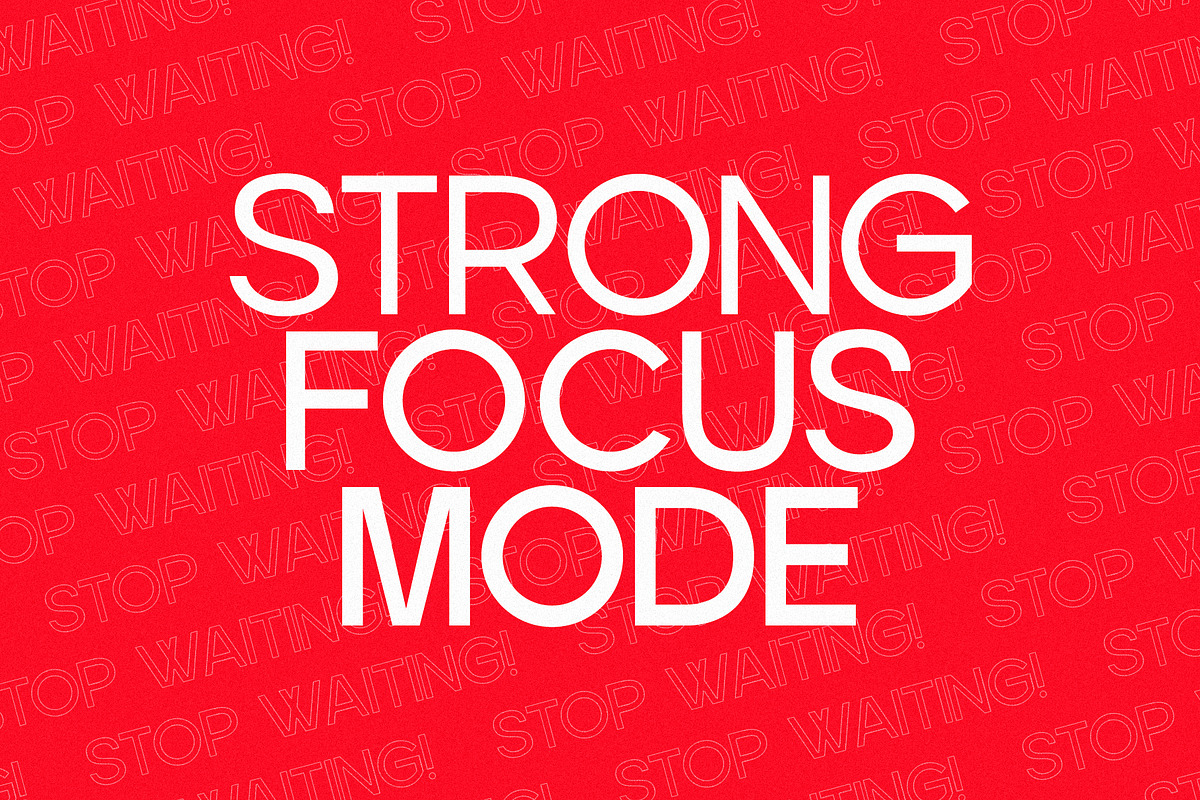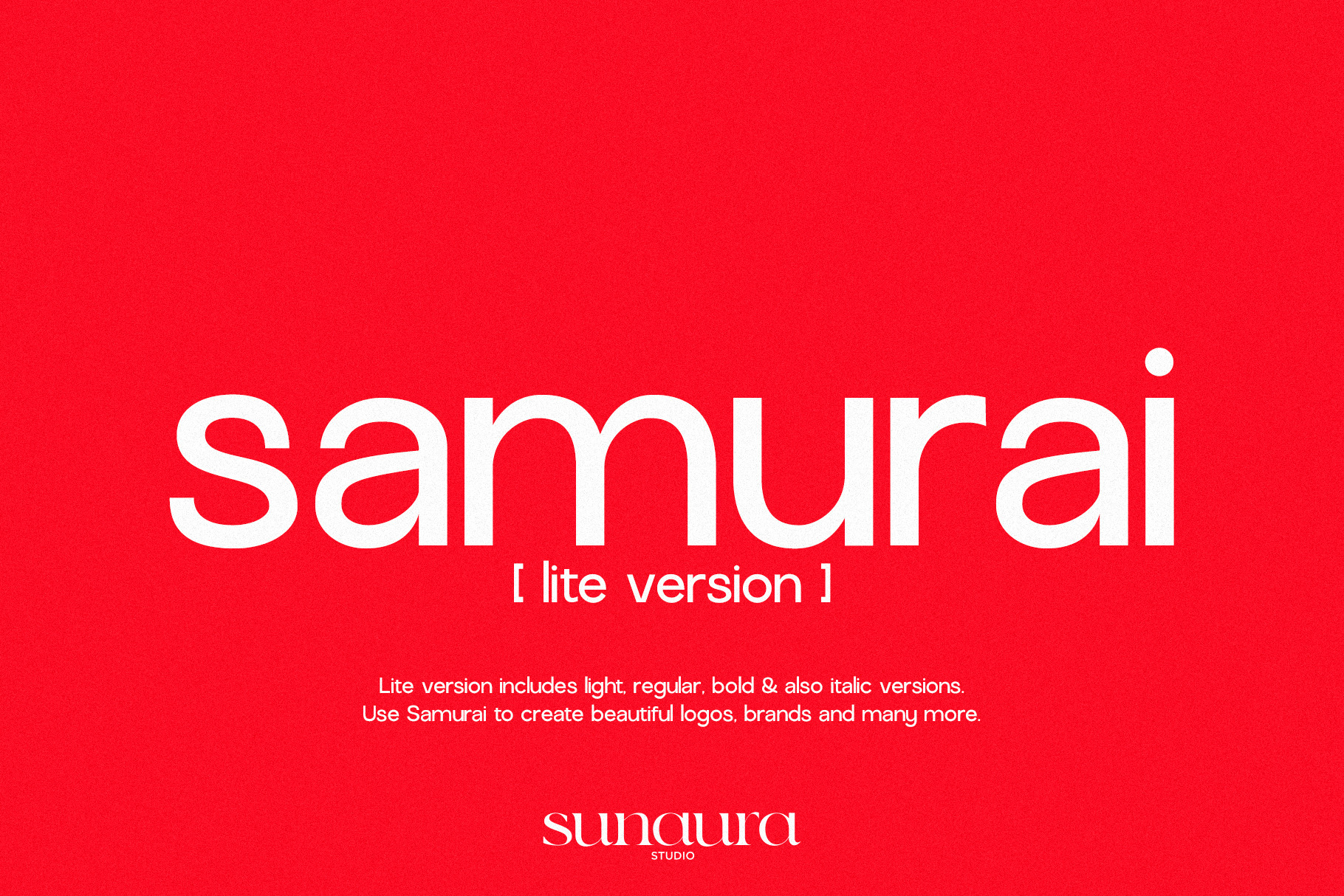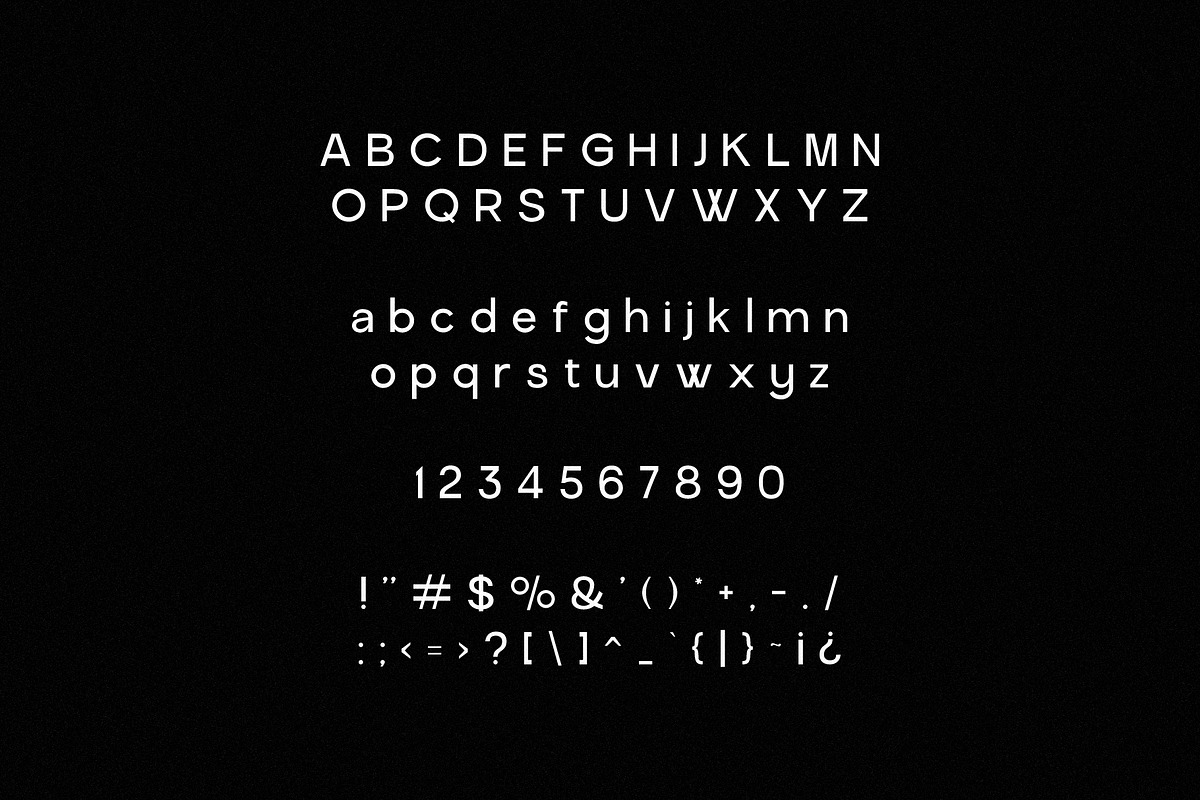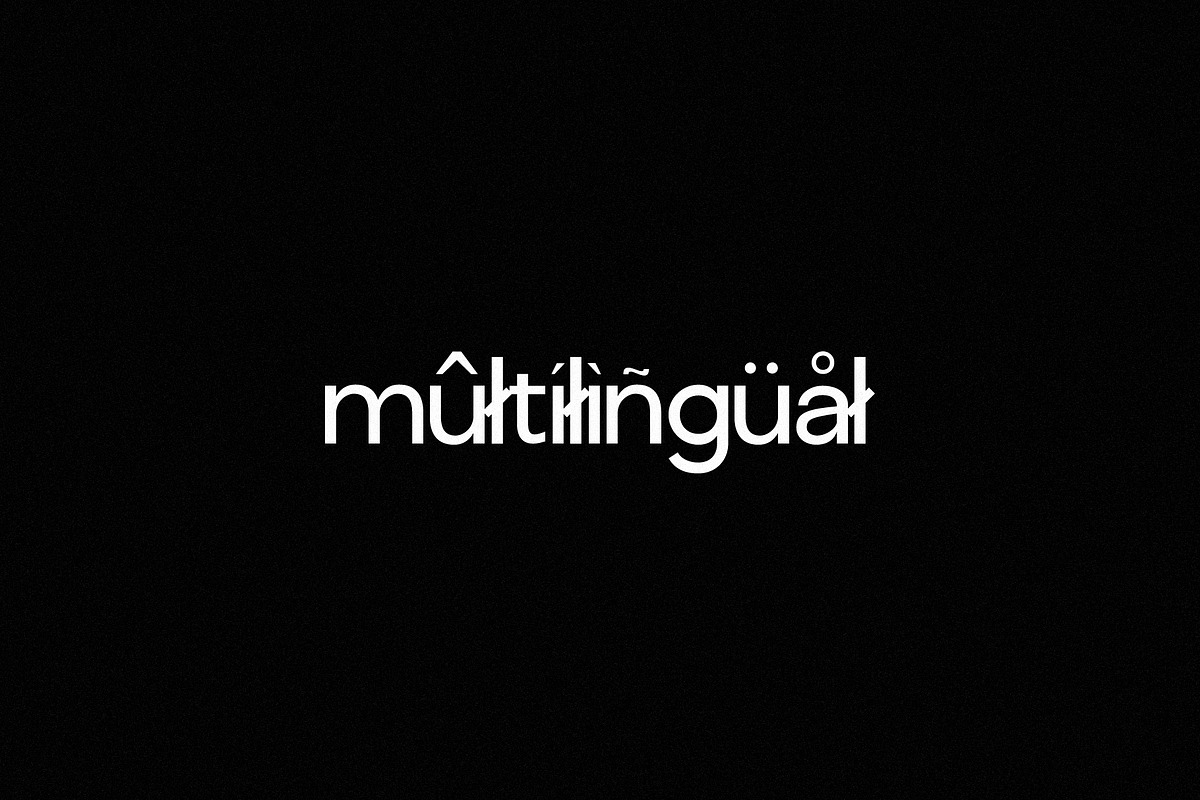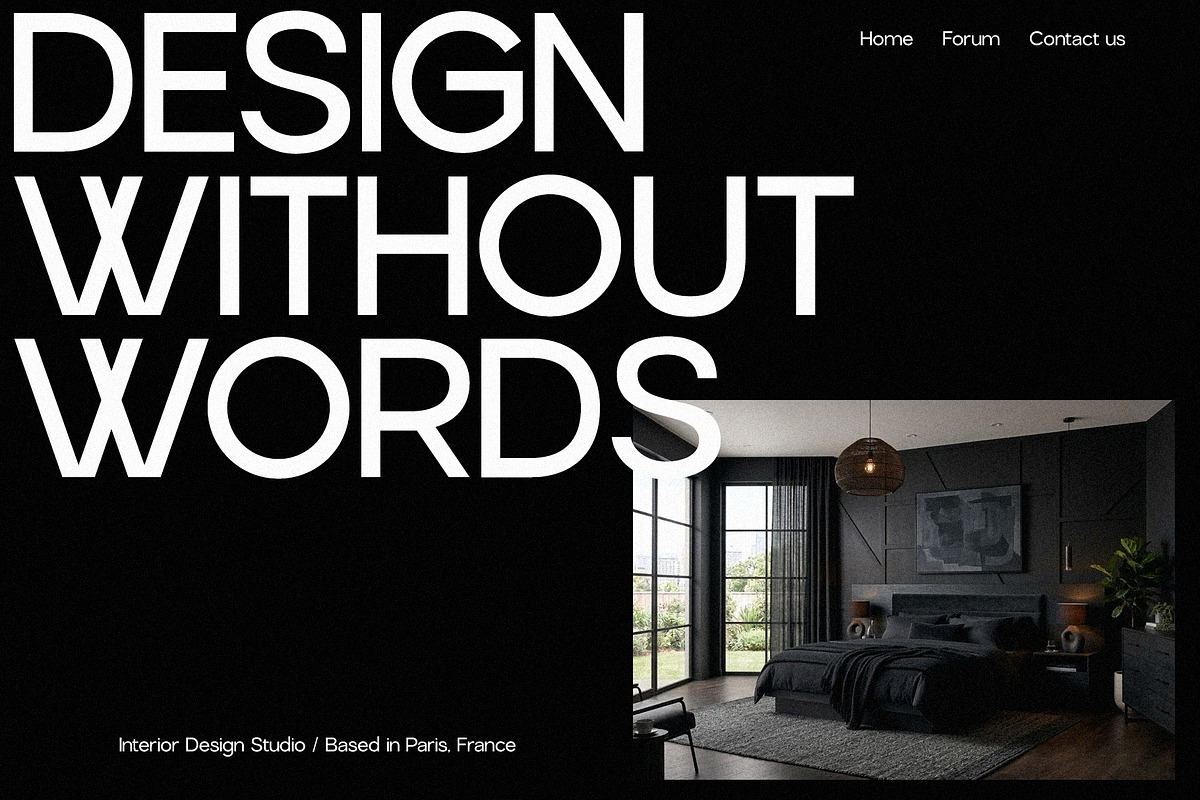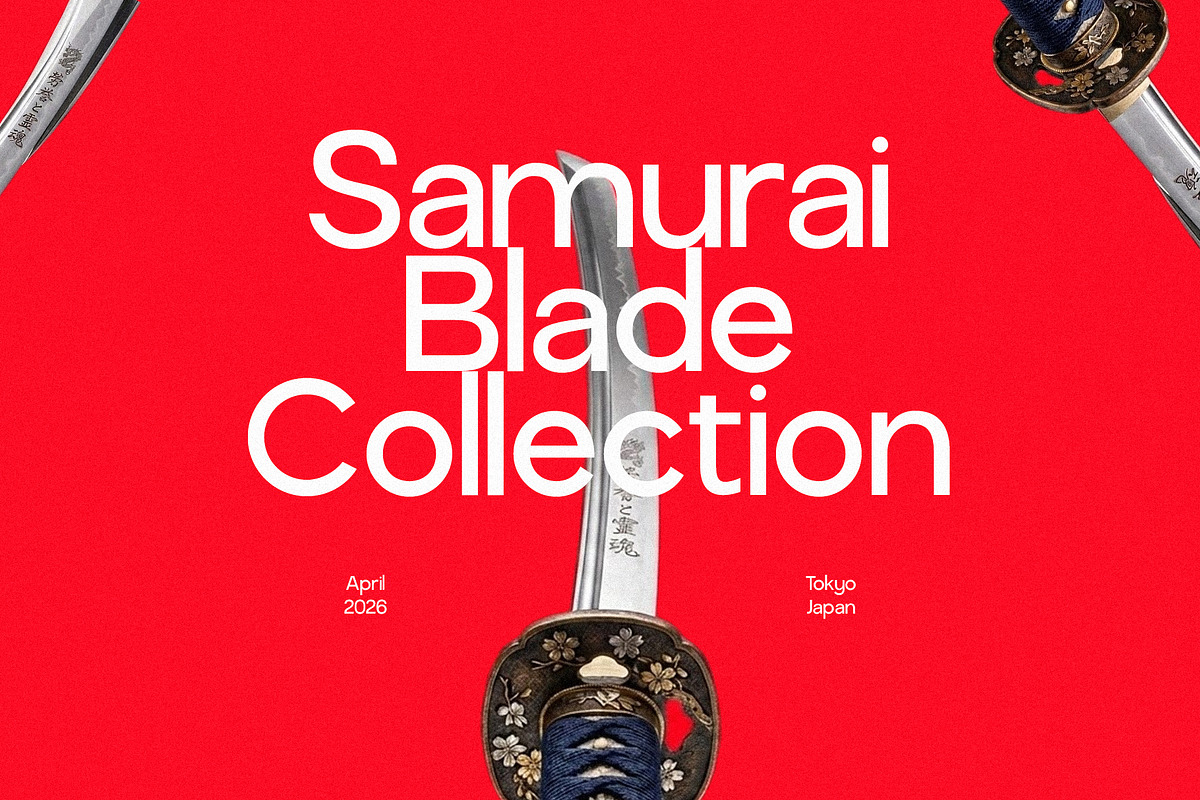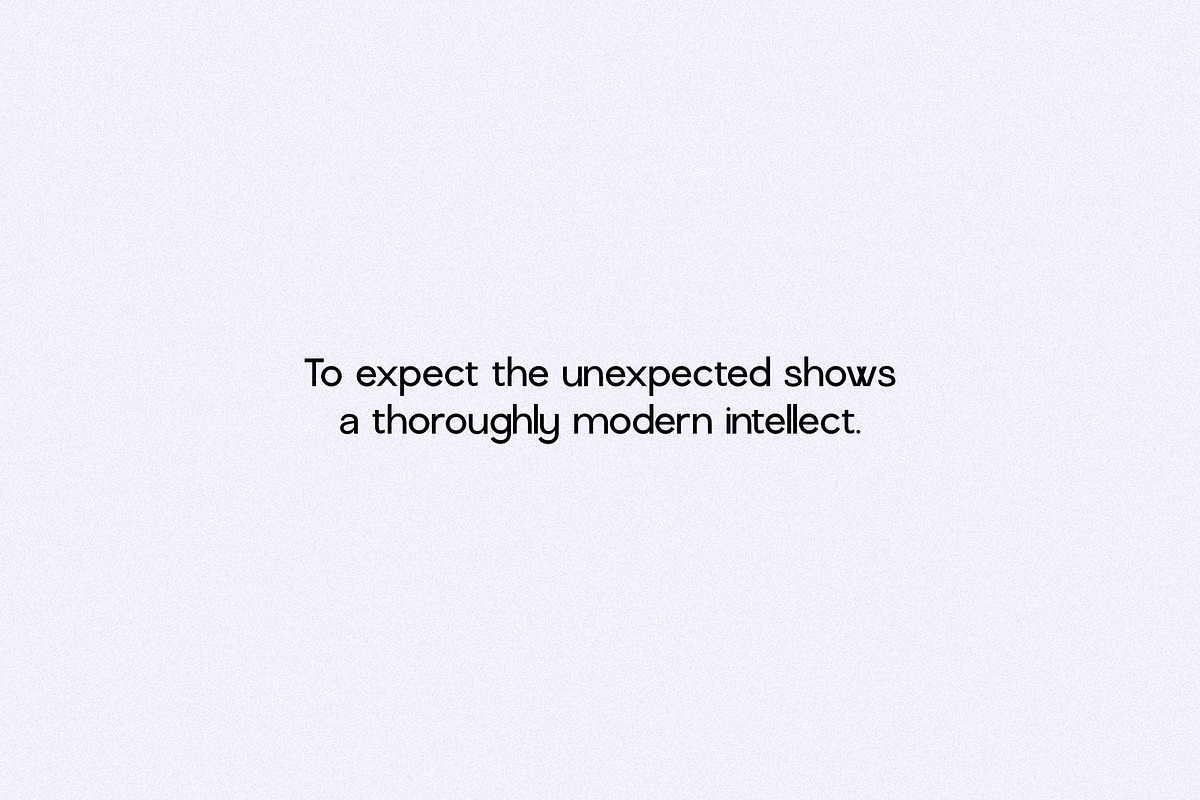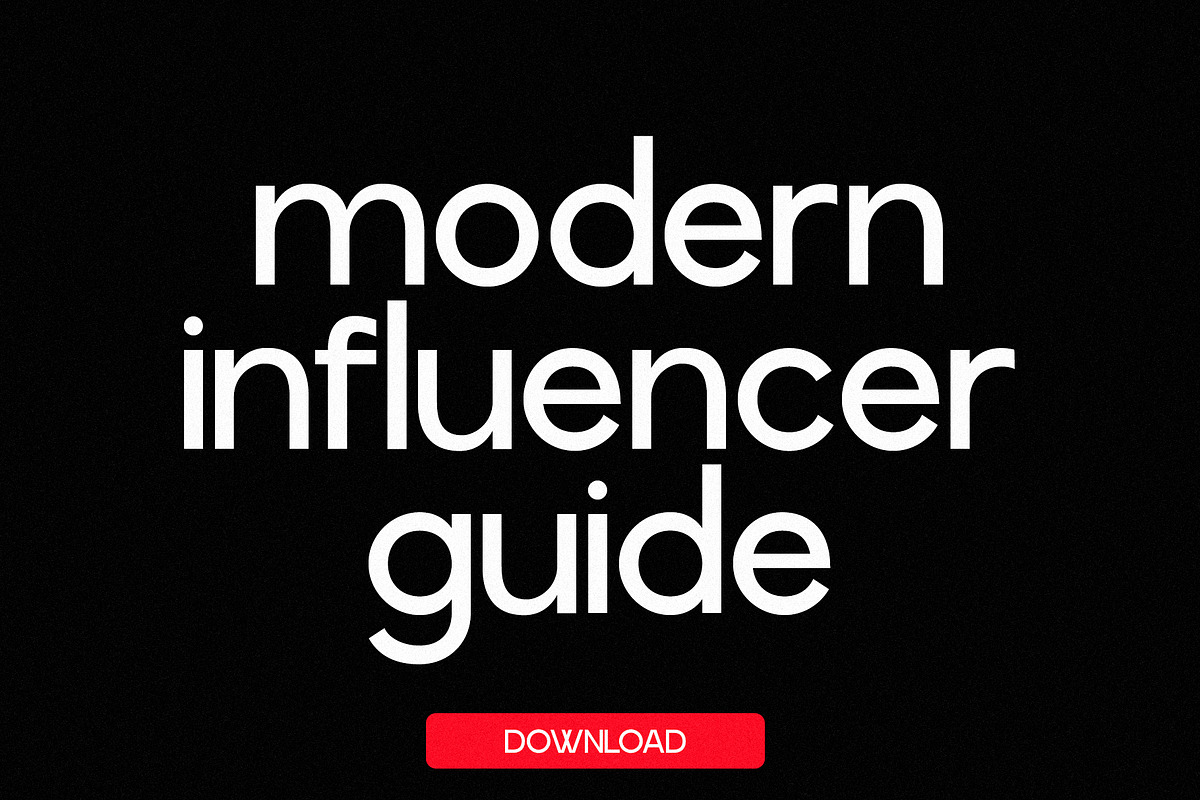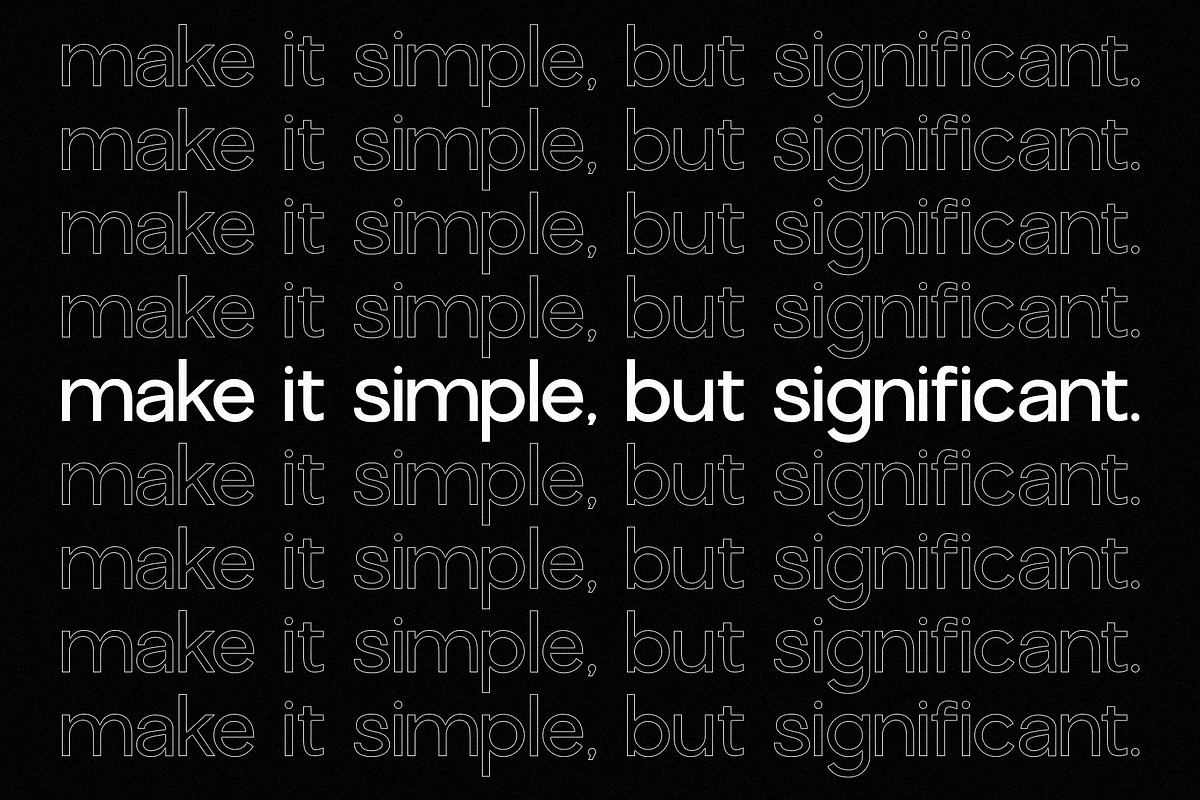
Samurai Lite Pack (6 Fonts)
Samurai Lite Pack expands the spirit of the original Samurai typeface into a more versatile system. Inspired by precision, discipline, and quiet strength, this modern sans serif blends clean geometry with sharp detailing to create a bold yet balanced presence. The Lite Pack includes Light, Regular, and Bold weights + Italic versions, giving designers the flexibility to move effortlessly from subtle elegance to strong visual impact.